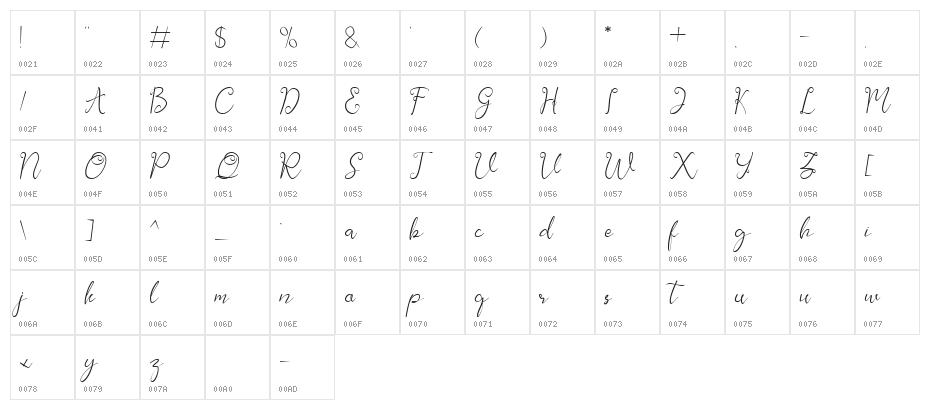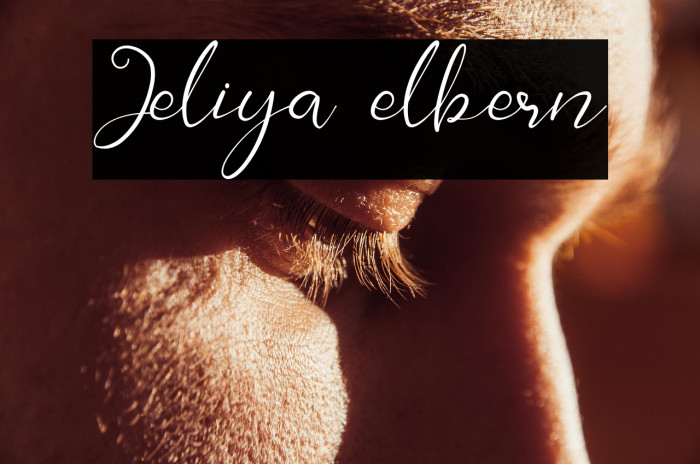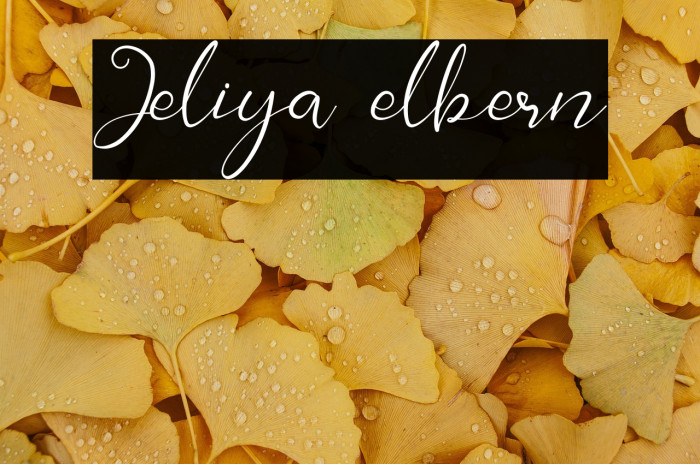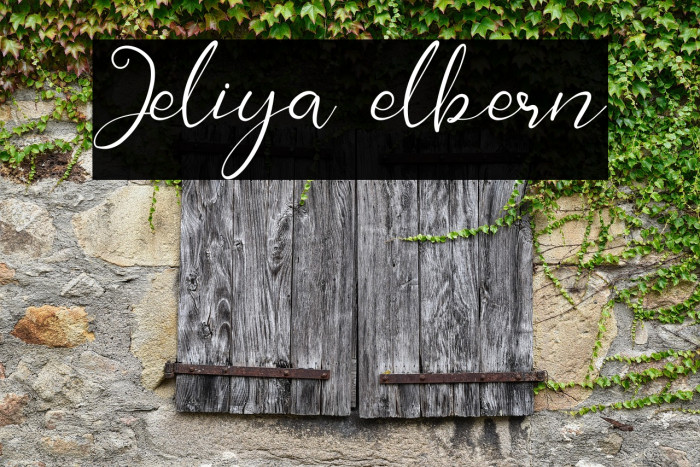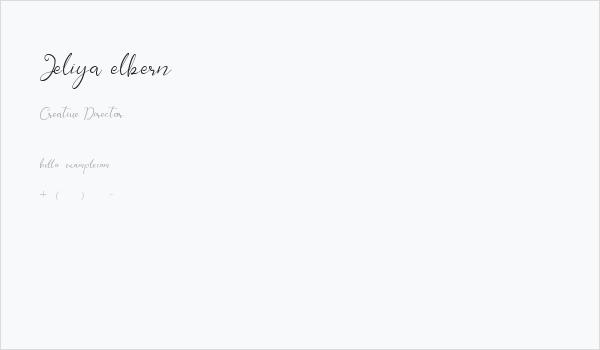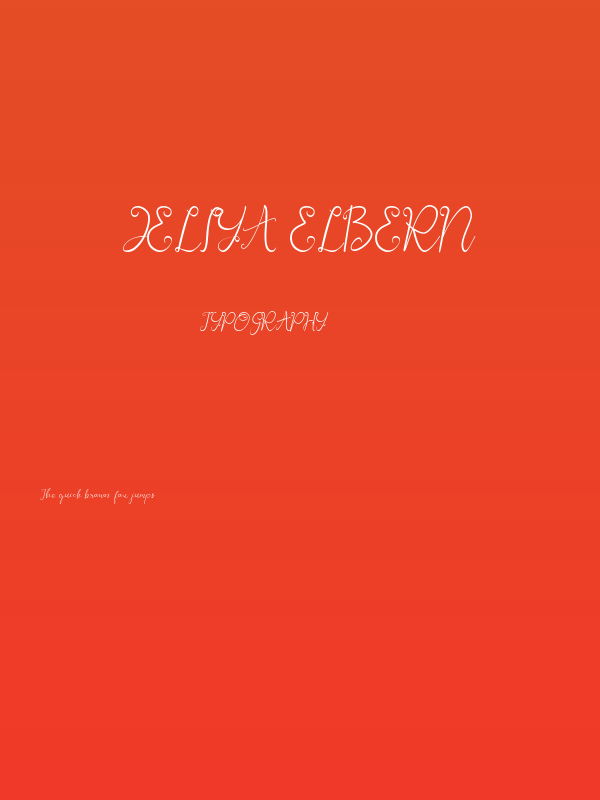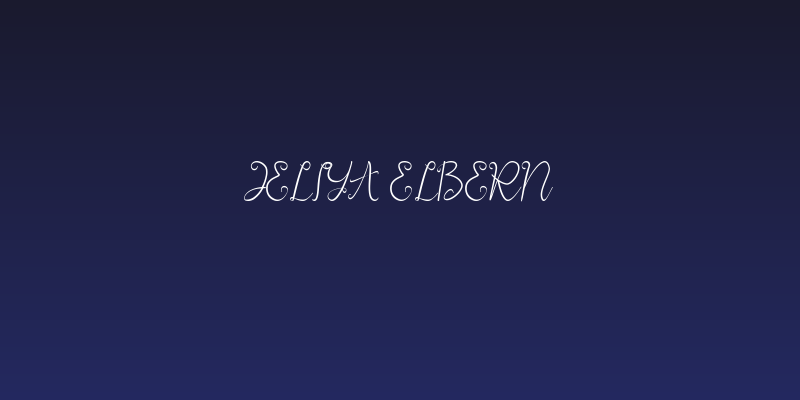
Jeliya elbern Font
Jeliya elbern Description
This elegant script font features a flowing, cursive style with intricate loops and flourishes. The uppercase letters are particularly ornate, with sweeping curves that add a touch of sophistication and grace. The lowercase letters maintain a consistent style, offering a harmonious blend of formality and readability. The numerals and special characters are designed to complement the overall aesthetic, making this font suitable for a variety of decorative purposes. Its delicate strokes and artistic flair make it ideal for projects that require a touch of elegance and creativity.
| Proposed Projects | Wedding invitations, greeting cards, branding, and decorative signage. |